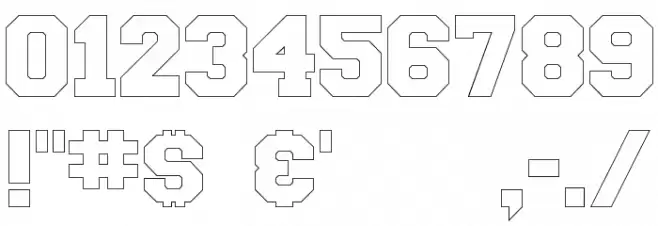
CollegiateBorderFLF Font
CollegiateBorderFLF Description
This font features a bold, blocky design with a distinct collegiate style, characterized by its strong, angular lines and open interior spaces. The letters are uppercase and have a uniform stroke width, giving them a solid and sturdy appearance. The font's outline style adds a unique dimension, making it stand out for headlines or titles. Its geometric shapes and clean edges evoke a sense of tradition and strength, often associated with sports teams or academic institutions. The numbers and special characters maintain the same bold and structured aesthetic, ensuring consistency across all glyphs.
A bold, blocky collegiate-style font with outlined characters from Uncategorized fonts.
- Proposed Projects: Ideal for sports team branding, university merchandise, event posters, and any project needing a strong, academic feel.
- Overall Style: Classic